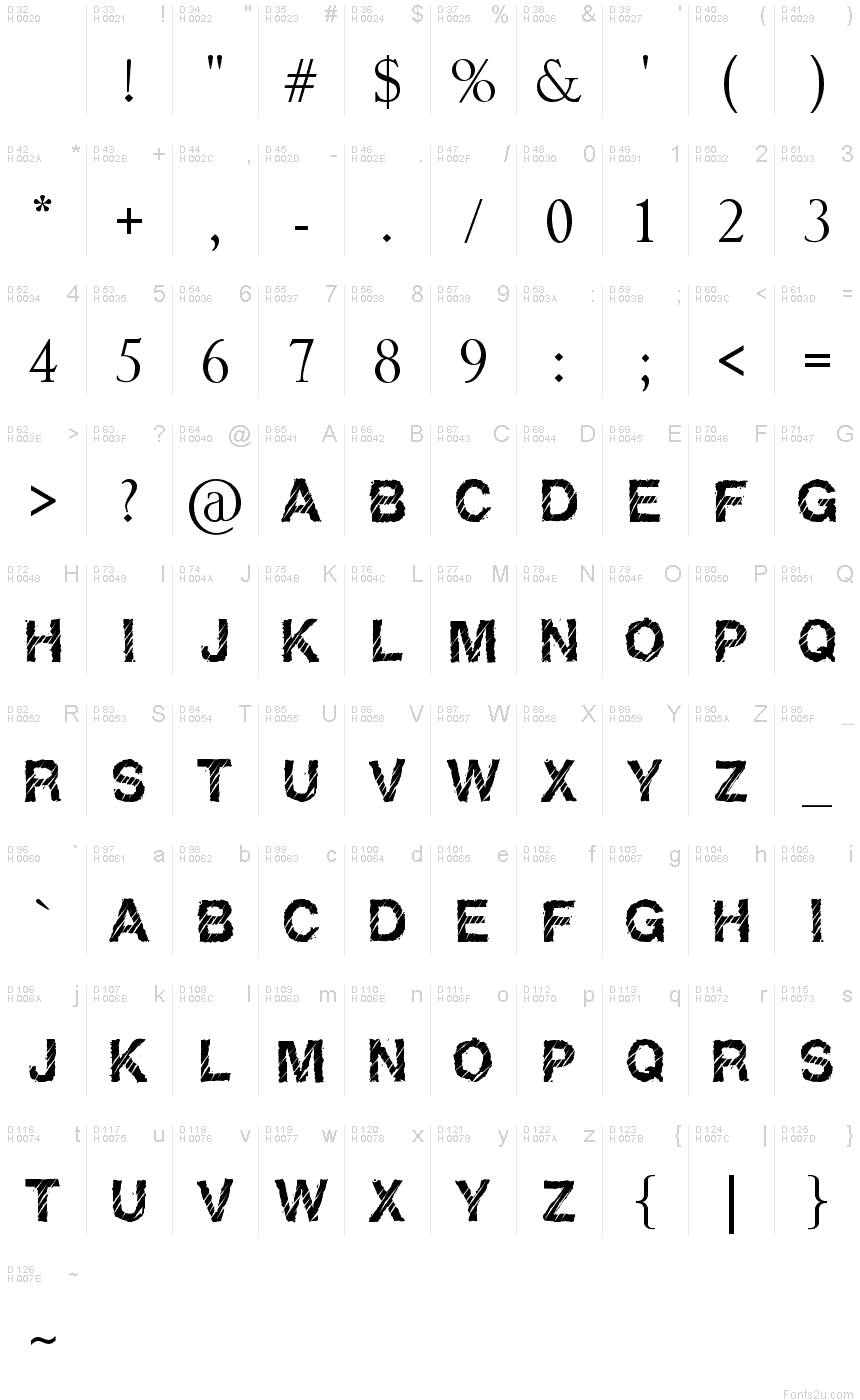
Raptor is a free eroded display font with broad, forceful capitals and a heavily cut-up surface. Ragged outer edges give the letters a torn, almost shredded silhouette. Repeated diagonal scratches run through the strokes, lending the damage a fast, directional quality rather than ordinary weathering.
A motocross poster is its most convincing setting, since the slashed texture suggests speed, impact, and scraped equipment. The same treatment suits action-game title cards, extreme-sports merchandise, and hard-rock event graphics. It is strongest when the lettering can become part of the event artwork, not merely a distressed caption.